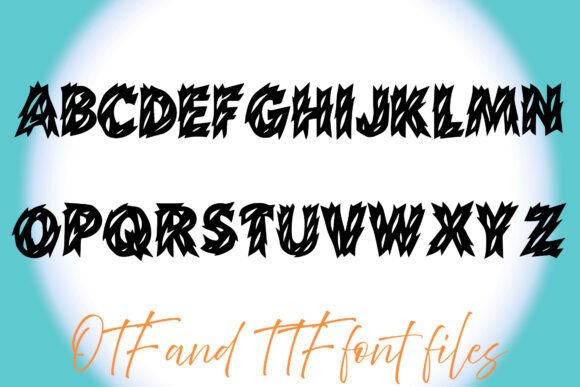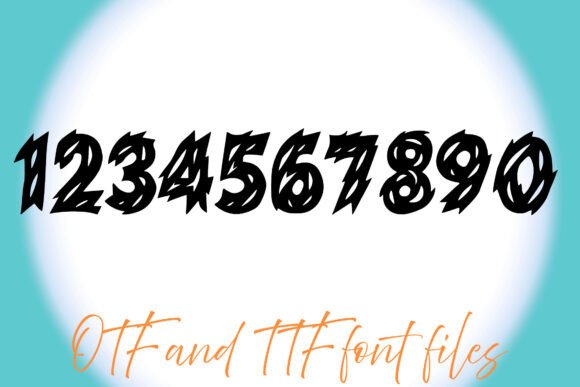
Ignite Your Designs with Fire Font: The Blazing Flame-Inspired Typeface
Are you looking for a font that can add a spark to your designs? Look no further than Fire Font, the fiery display typeface that’s sure to grab attention and leave a lasting impression. With its blazing flame-inspired letterforms, Fire Font brings the heat to any design project, making it perfect for gaming graphics, poster art, Halloween invites, extreme sports branding, and more.
The Power of Fire Font
Fire Font is designed to ignite your designs with its bold, high-energy aesthetic. Its flame-inspired letterforms are crafted to evoke the intensity and passion of fire, making it the perfect choice for designs that need a powerful touch. Whether you’re creating a logo, poster, or social media graphic, Fire Font is sure to turn heads and leave a lasting impression.
Perfect for Gaming Graphics
Fire Font is a natural fit for gaming graphics, where high-energy visuals are a must. Its bold, fiery letterforms are perfect for creating eye-catching logos, titles, and other graphical elements that demand attention. Whether you’re designing a game logo, creating in-game text, or crafting promotional materials, Fire Font is the perfect choice.
Make a Statement with Poster Art
Poster art is all about making a statement, and Fire Font is the perfect tool for the job. Its bold, fiery letterforms are designed to grab attention and convey a sense of energy and excitement. Whether you’re creating a poster for a concert, movie, or product launch, Fire Font is sure to make your design stand out.
Get Ready for Halloween with Fire Font
Halloween is the perfect time to get creative with Fire Font. Its flame-inspired letterforms are perfect for creating spooky, eye-catching invites, posters, and other Halloween-themed designs. Whether you’re throwing a party, hosting a haunted house, or simply want to create some creepy crafts, Fire Font is the perfect choice.
Extreme Sports Branding
Extreme sports require a bold, high-energy aesthetic, and Fire Font delivers. Its fiery letterforms are perfect for creating logos, jerseys, and other branding materials that demand attention. Whether you’re designing for skateboarding, BMX, or motocross, Fire Font is the perfect choice.
Why Choose Fire Font?
So why choose Fire Font for your design projects? Here are just a few reasons:
- Attention-grabbing: Fire Font is designed to grab attention and leave a lasting impression.
- High-energy: Its flame-inspired letterforms evoke the intensity and passion of fire.
- Versatile: Fire Font is perfect for a wide range of design projects, from gaming graphics to poster art.
Fire Font is the perfect choice for designers and crafters looking to add a spark to their designs. With its blazing flame-inspired letterforms, Fire Font brings the heat to any design project, making it perfect for gaming graphics, poster art, Halloween invites, extreme sports branding, and more. Available in OTF and TTF formats, Fire Font is ready to ignite your designs and take them to the next level.